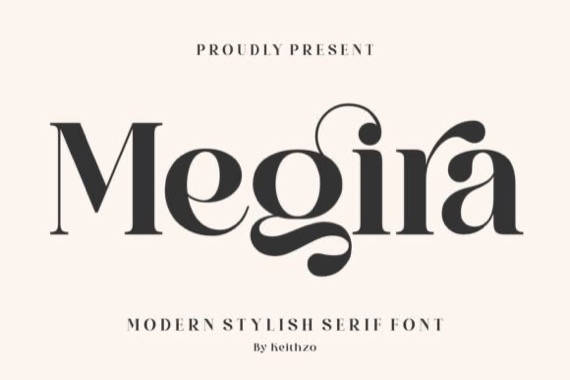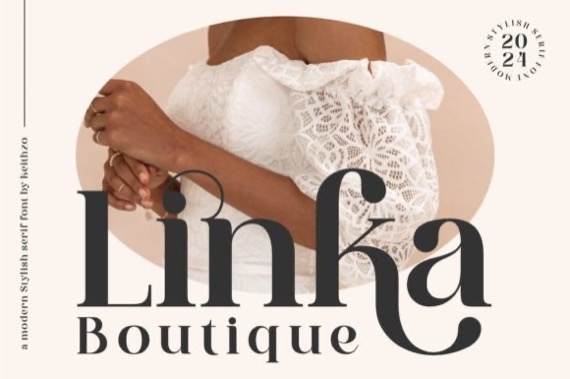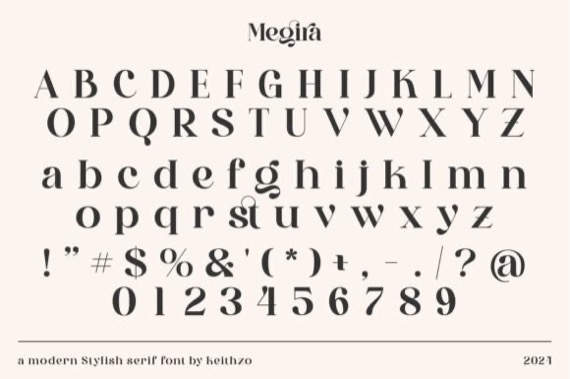
Megira is a clean and stylish serif font that was created by Keithzo (7NTypes). Its simple, modern design brings a touch of friendly to any design. Stylish serif display font that commands attention with its refined lines and sleek curves. Its sophisticated presence lends an air of elegance to any design project, from editorial layouts to branding materials. Perfect for conveying professionalism and contemporary aesthetics in various creative endeavors.
Megira Serif Font
Designer, Publisher: Keithzo (7NTypes)